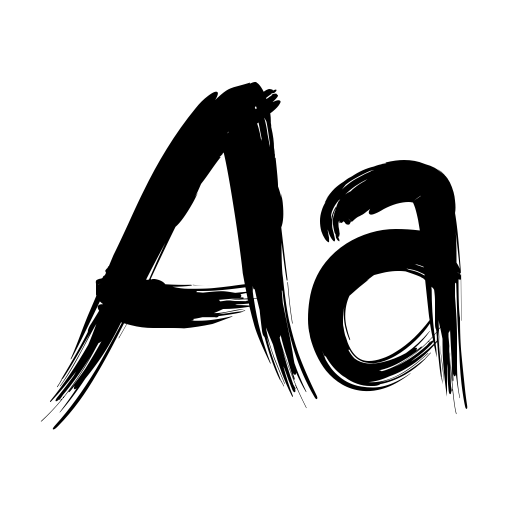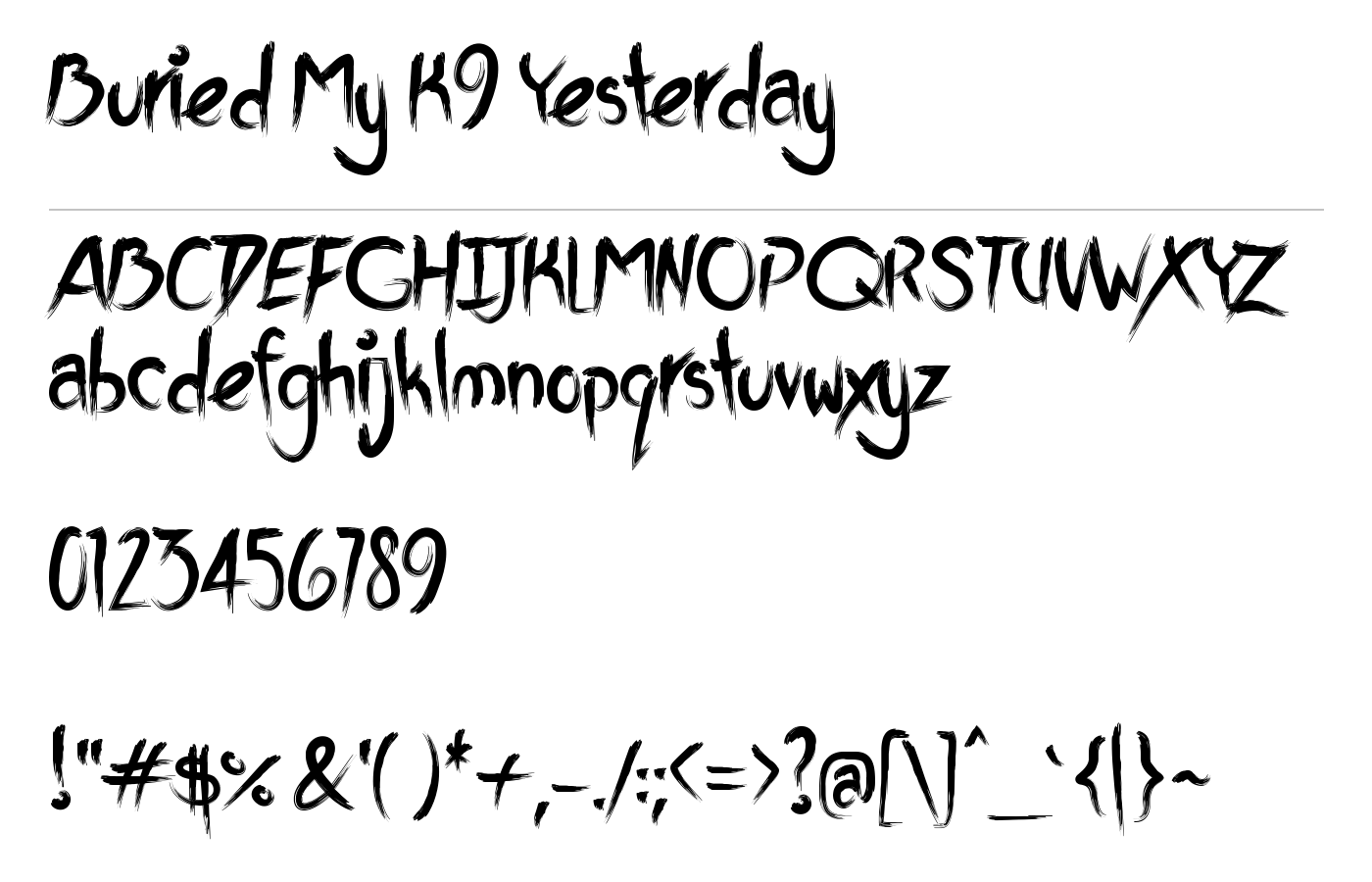
BuriedK9 is a bold, expressive handwritten font with a brushstroke texture that gives it a raw, edgy feel. Its slightly condensed letterforms and dynamic stroke variations create a sense of urgency and movement, making it ideal for impactful headlines, posters, and designs that seek a rebellious or artistic vibe. This font works particularly well for creative projects looking to convey personality and intensity with a handcrafted touch.
BuriedK9 Font
About BuriedK9 Font
| Font family | BuriedK9 Font |
| Designer | ykl |